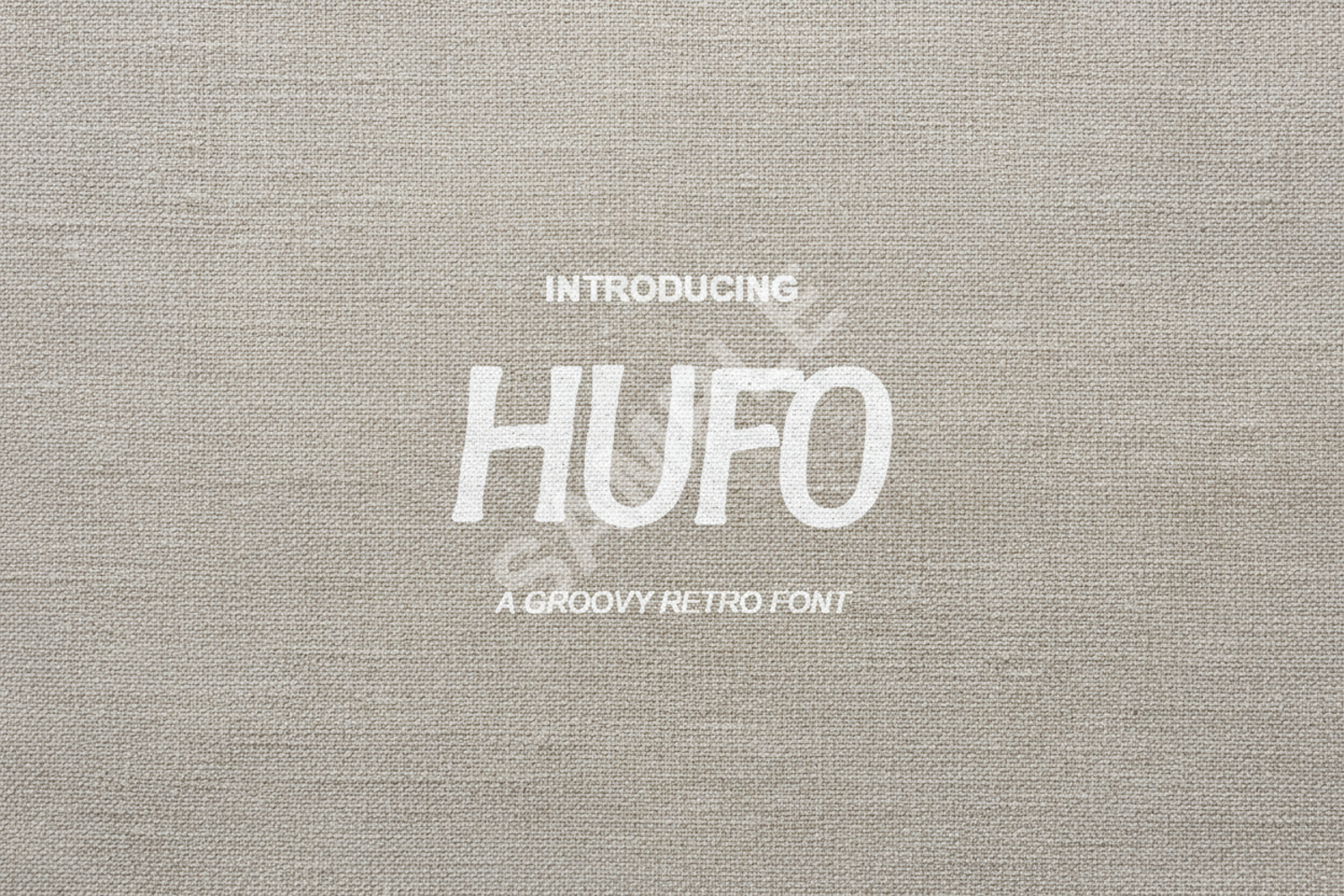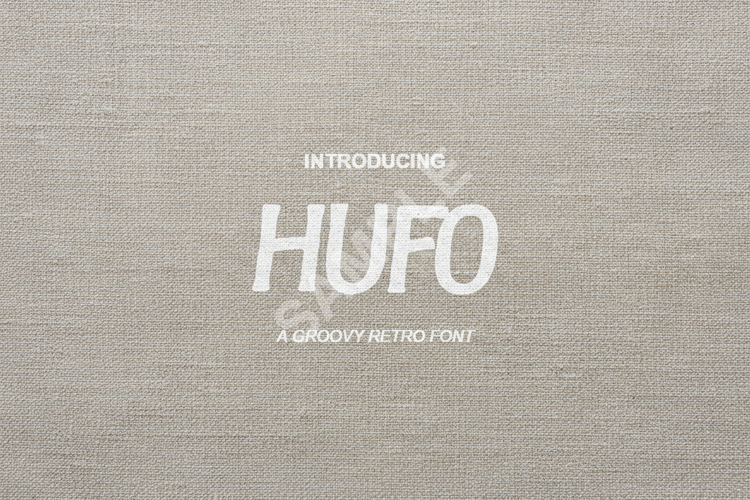
Hufo - Sleek Modern Sans Serif Typeface
Hufo
Introduction:
Hufo is a premium, high-quality sans serif font crafted for designers who demand precision and versatility. With its clean lines and balanced proportions, Hufo offers a sophisticated aesthetic that adapts seamlessly to both digital and print environments. Whether you are building a brand from the ground up or refining a minimalist layout, Hufo provides the professional edge your project needs.
- Complete character set including uppercase, lowercase, and numerals
- Comprehensive multilingual support
Optimized Use Cases:
- Professional Branding and Identity Systems
- High-end Logo Design and Wordmarks
- Editorial Layouts and Magazine Spreads
- Minimalist Social Media Graphics
- Modern Website Headers and UI Design
- Corporate Stationery and Business Cards